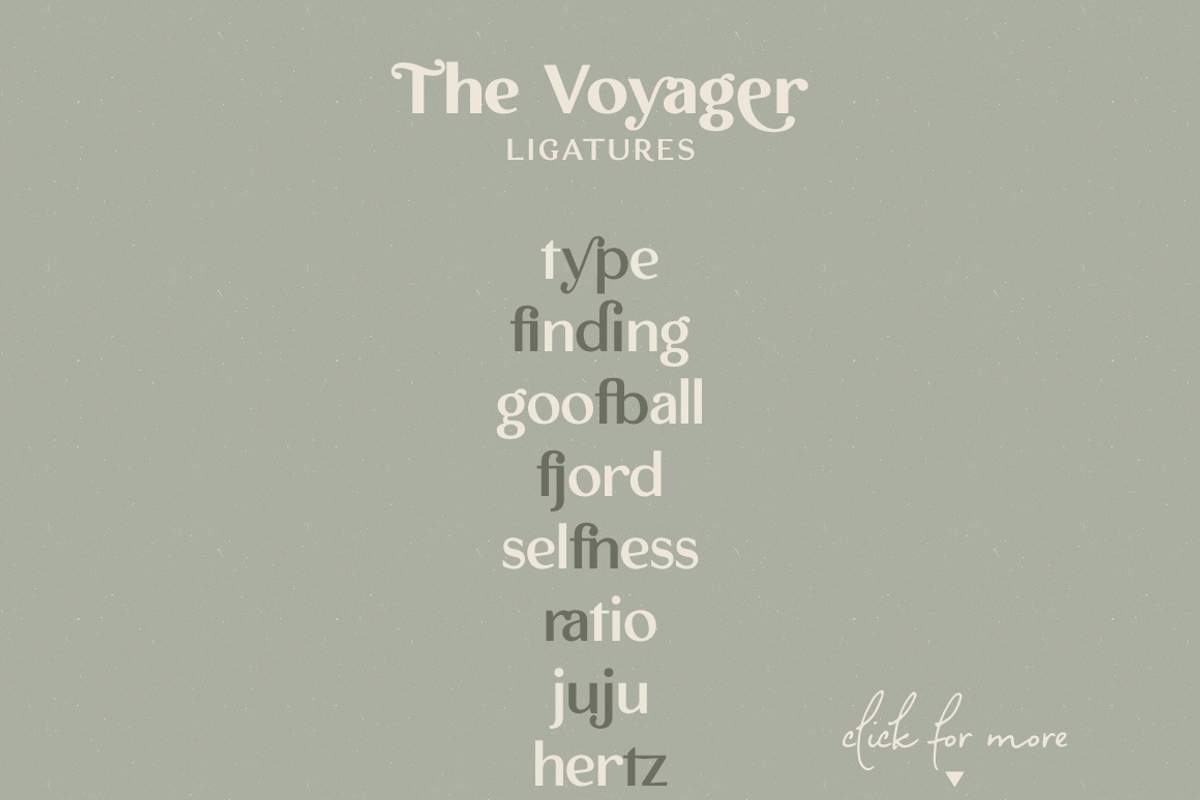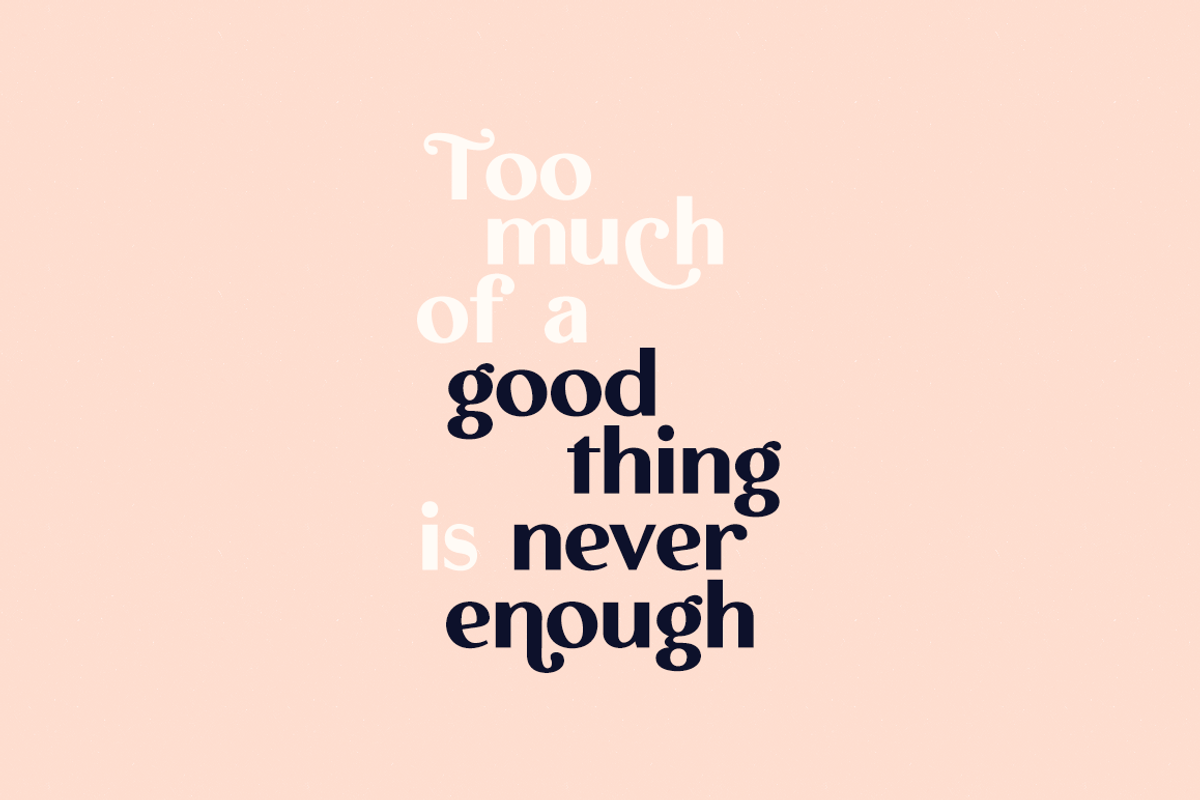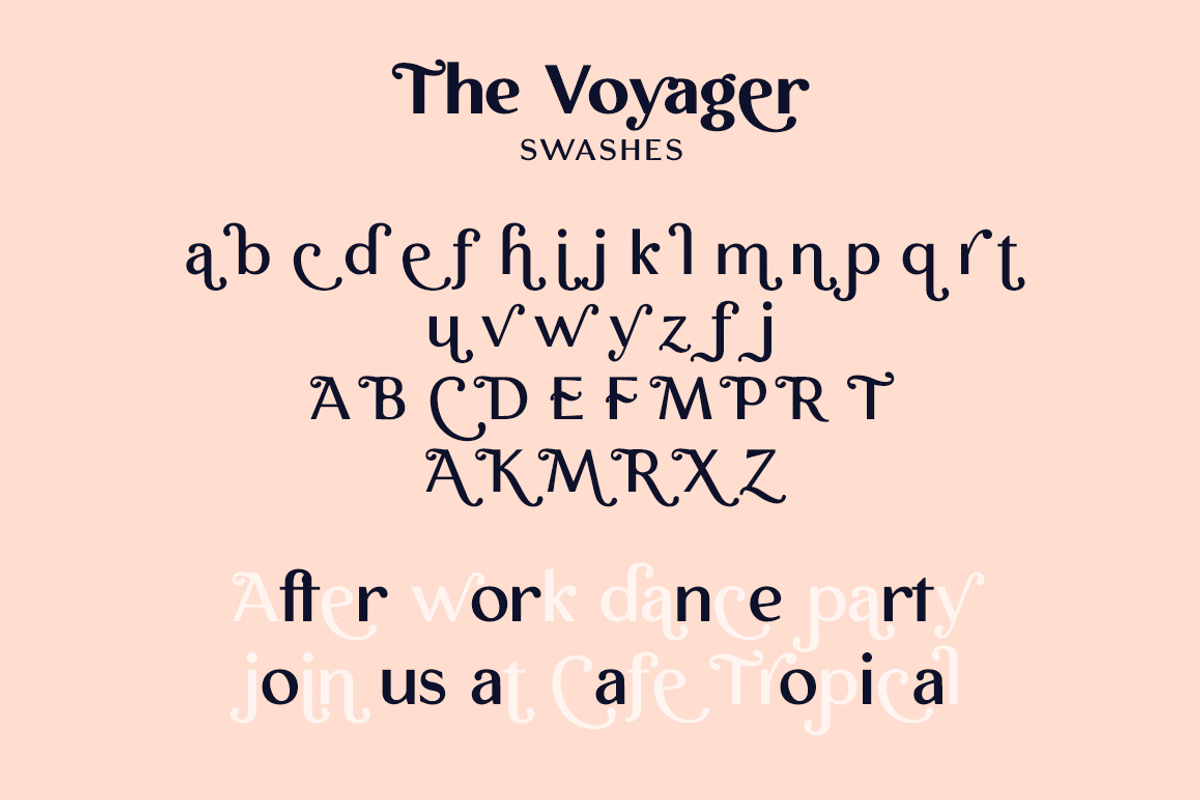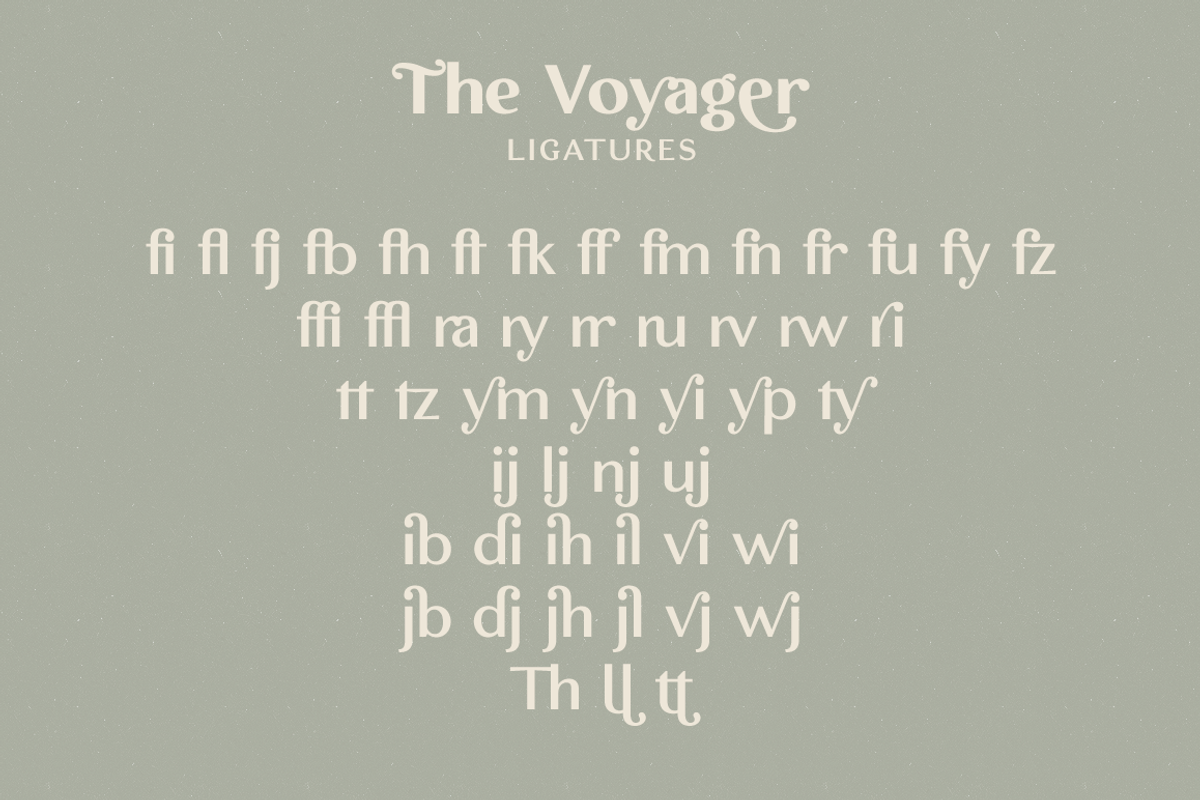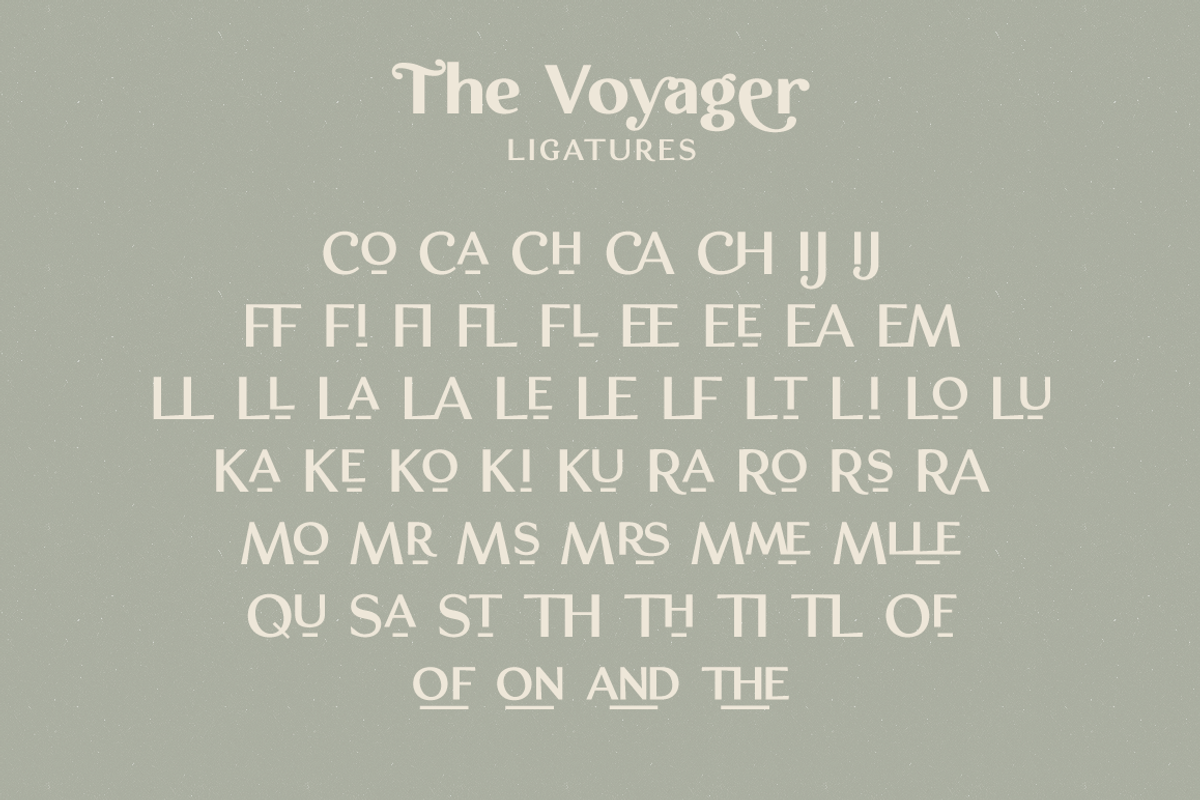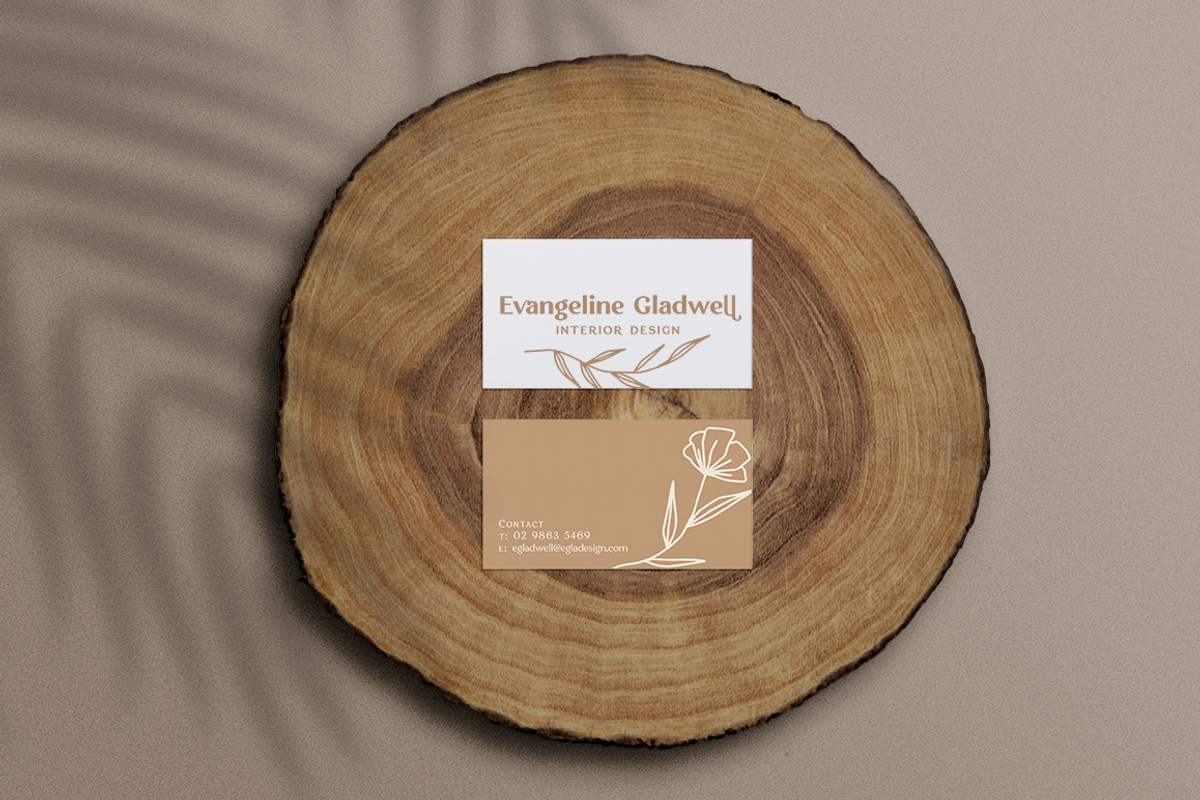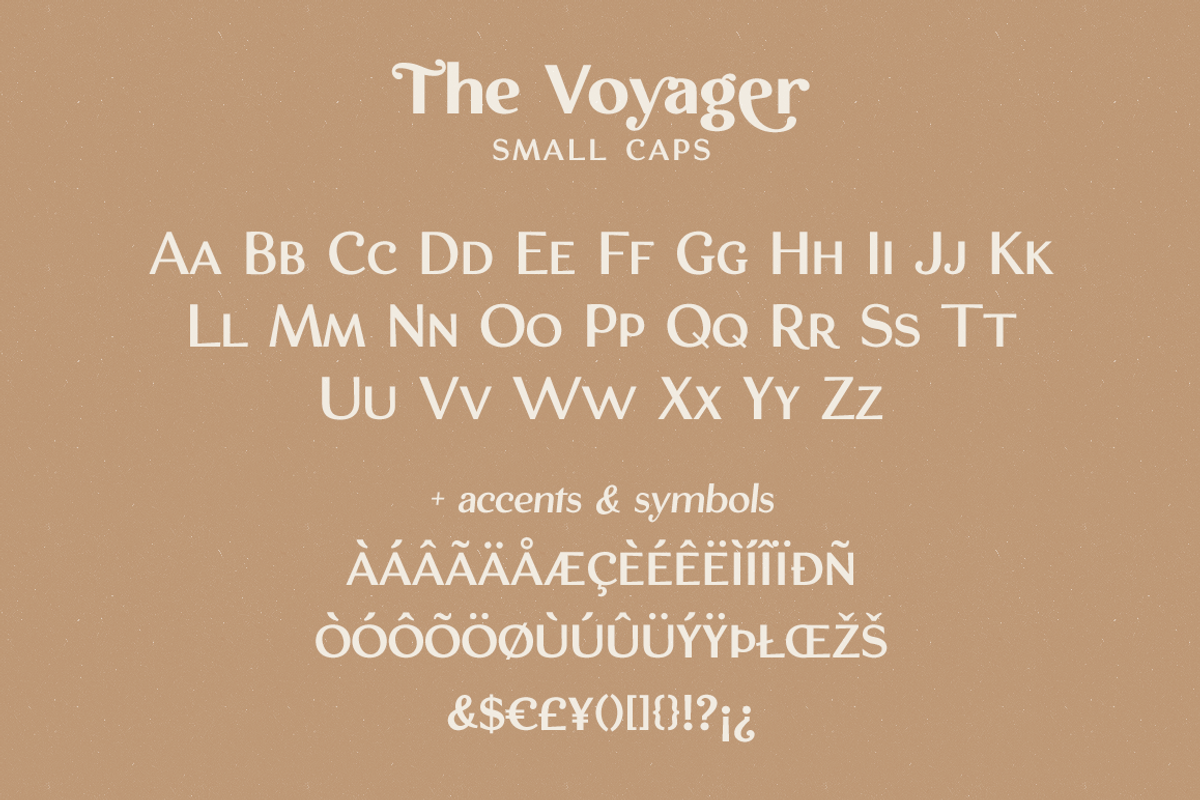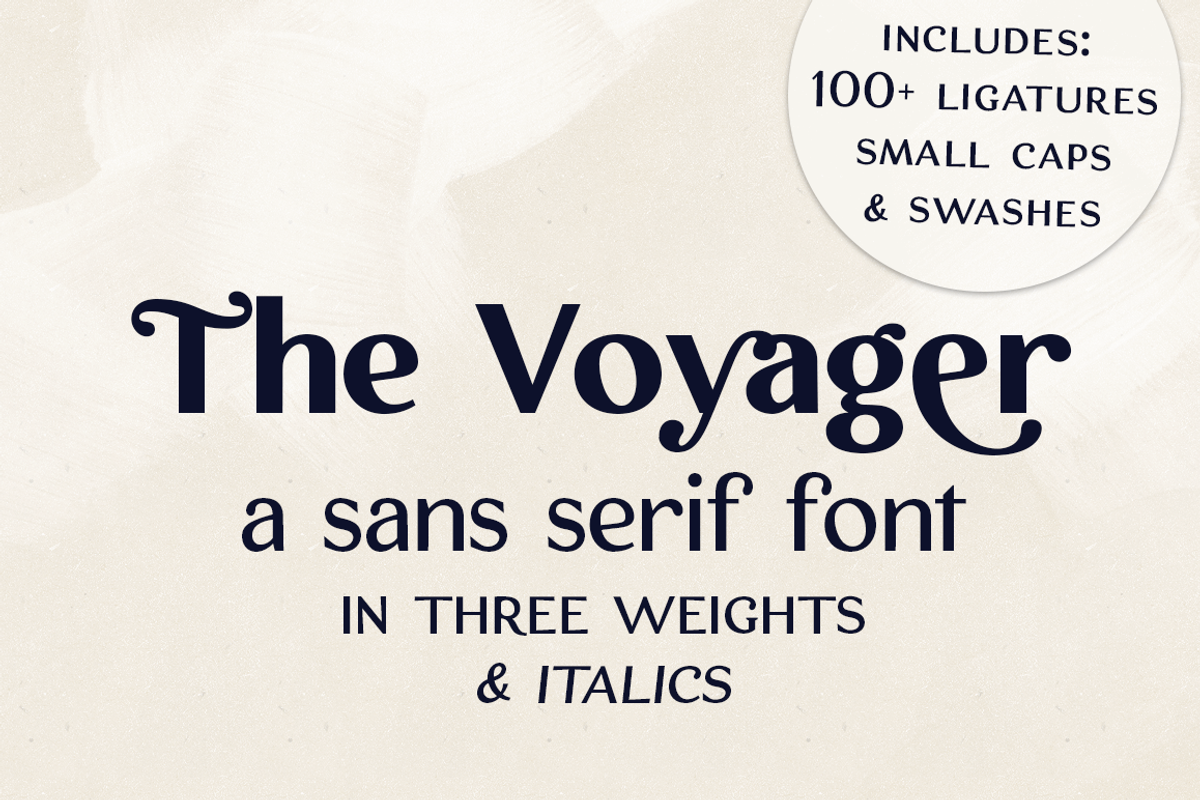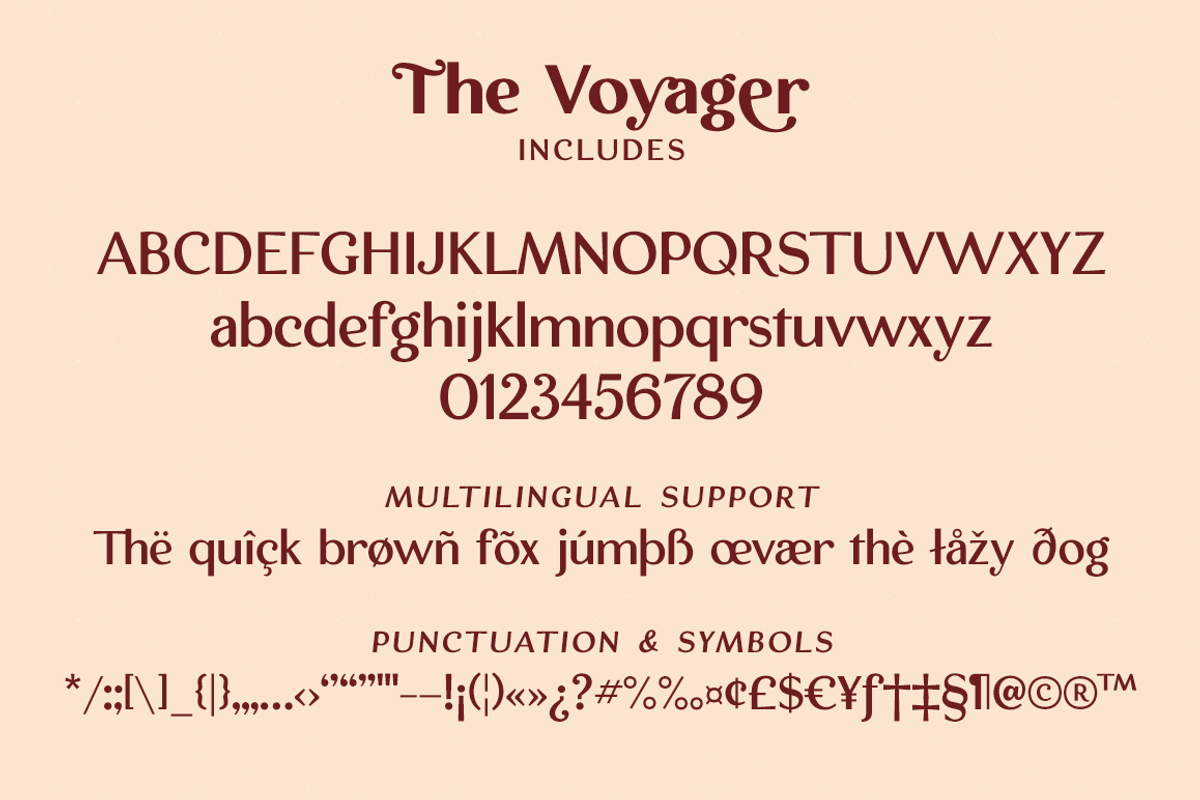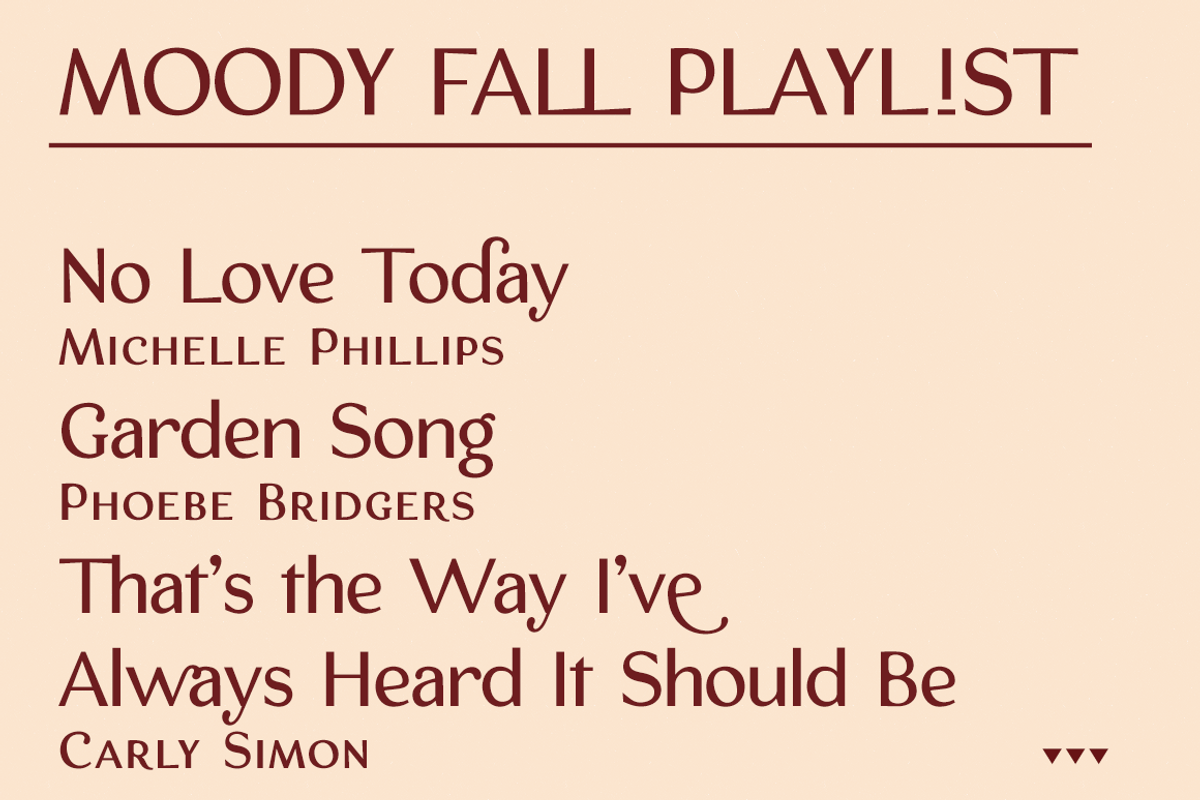
The Voyager ligature font
The Voyager is a sans serif display font with a retro look. With over 100 ligatures, small caps, and swashes, The Voyager is perfect for logotype design, magazine layouts, in titles and short texts.
It includes:
- Three weights: Light, Regular and Bold & Italics
- 100+ ligatures for both the lowercase characters and the caps
- Small caps
- A set of frames